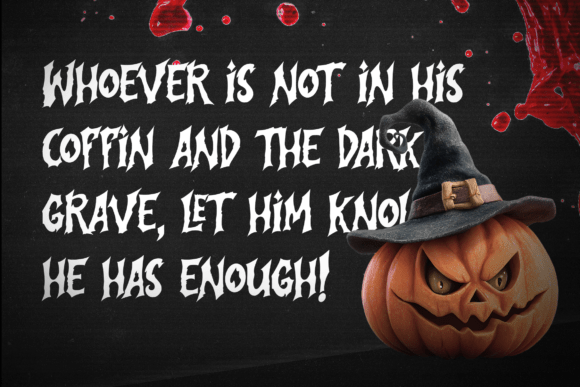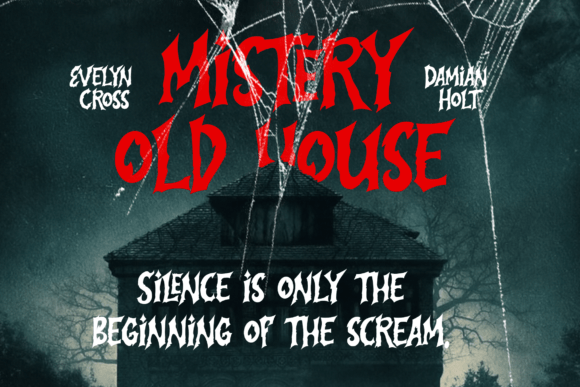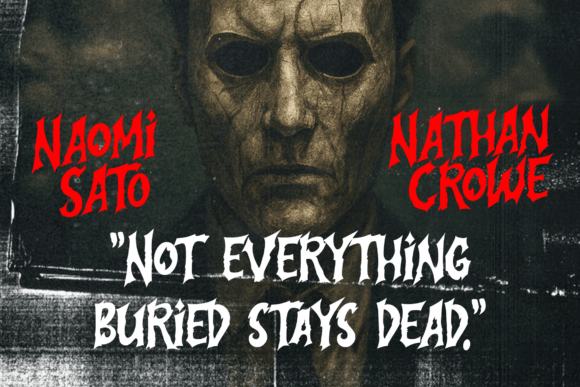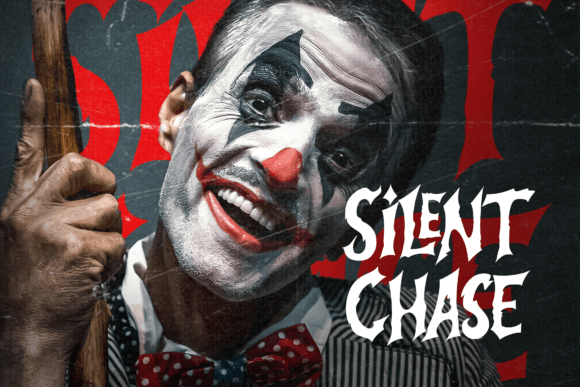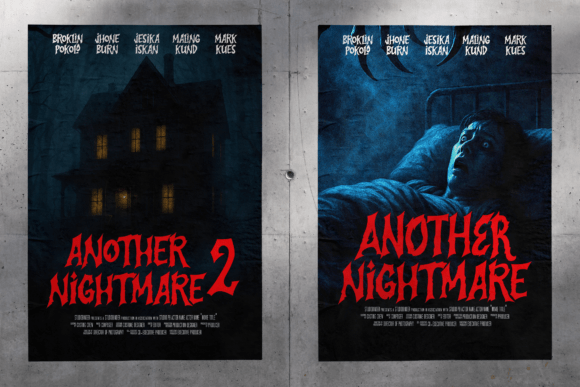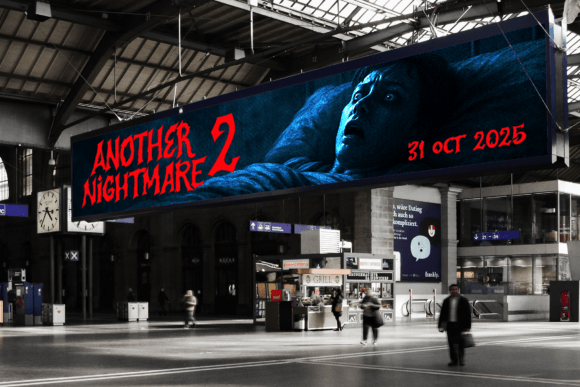
Unleash the Terror: Introducing Another Nightmare Font
Are you ready to add a dash of darkness to your designs? Look no further than Another Nightmare, a horror font that embodies the essence of gothic terror and supernatural mystery. This font is not just a collection of letters; it’s an experience that will transport your audience to a world of fear and fascination.
The Essence of Horror
Another Nightmare is a masterfully crafted font that exudes an atmosphere of dread. Its jagged, sinister strokes seem to come alive, channeling whispers and haunted energy that will leave your audience shivering. This font is perfect for designers and crafters who want to create horror posters, thriller titles, occult branding, Halloween events, and anything that craves a chilling touch.
Evoking the Supernatural
Each letter in Another Nightmare is carefully designed to evoke the supernatural and the mysterious. Imagine witches casting spells, cursed forests shrouded in mist, and shadows where monsters hide. This font is the perfect tool to conjure up these eerie images and bring them to life in your designs.
Another Nightmare is not just limited to horror posters and thriller titles. Its versatility knows no bounds, and it can be used for:
- Haunted party invitations that will leave your guests shivering with anticipation
- Sinister book covers that will draw readers in with their dark allure
- Occult branding that will set your business apart from the rest
- Halloween events that will cast a spell of terror over your attendees
Three Versatile Styles
Another Nightmare comes in three versatile styles: Regular, Outline, and Extrude. This gives you the creative freedom to mix, layer, and experiment with different designs. Whether you’re crafting a wicked spell poster, a gothic headline, or a nightmare-inspired display, Another Nightmare has got you covered.
Transforming Ordinary Designs into Eerie Masterpieces
Another Nightmare has the power to transform ordinary designs into eerie masterpieces of fear and fascination. Its unique and terrifying style will add a touch of darkness to any design, making it perfect for designers and crafters who want to push the boundaries of creativity.
In conclusion, Another Nightmare is a must-have font for designers and crafters who want to add a dash of terror to their designs. Its darkly enchanting style, versatility, and customization options make it the perfect tool for creating horror posters, thriller titles, occult branding, and more. So, unleash the terror and get ready to cast a spell of fear and fascination over your audience with Another Nightmare Font.